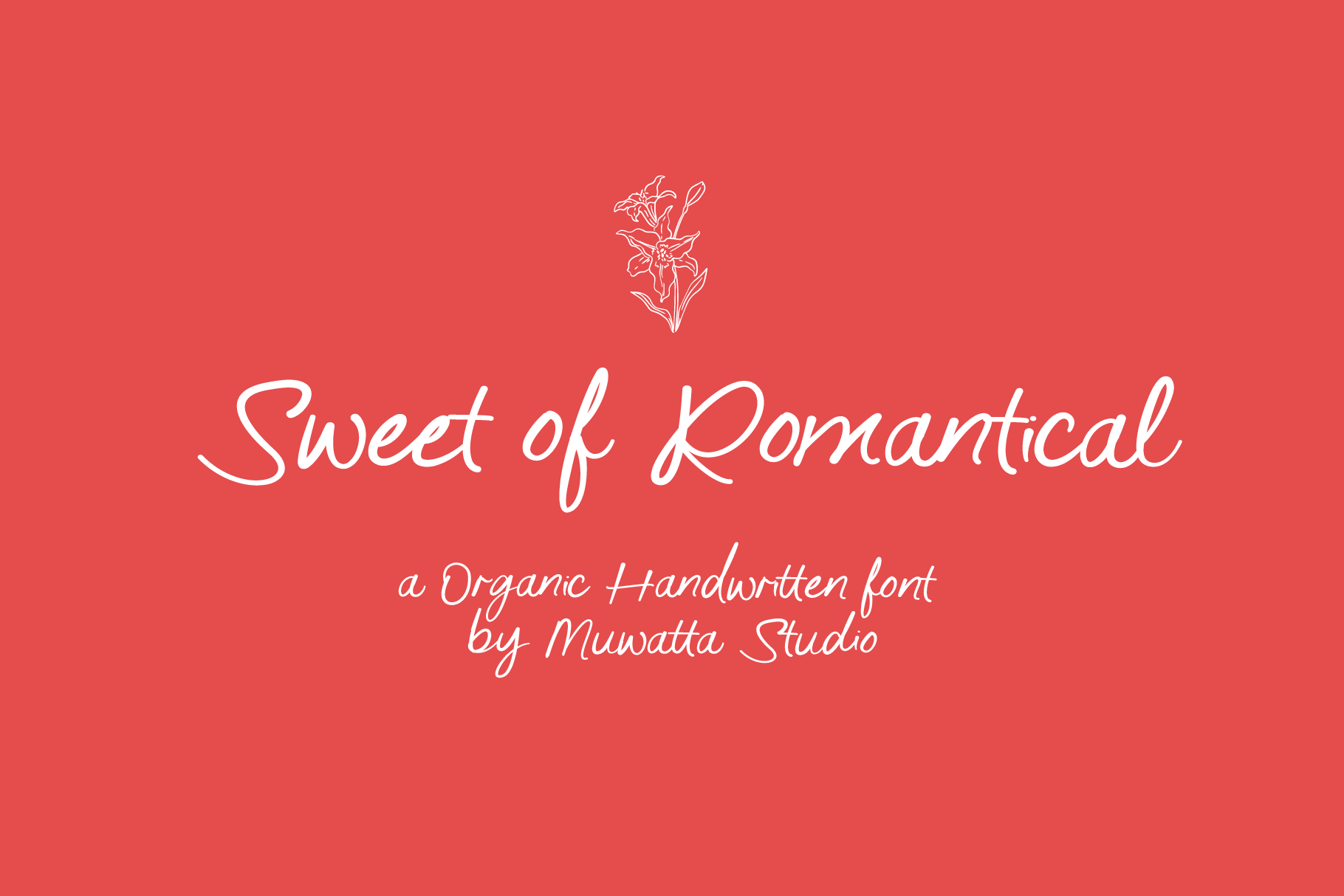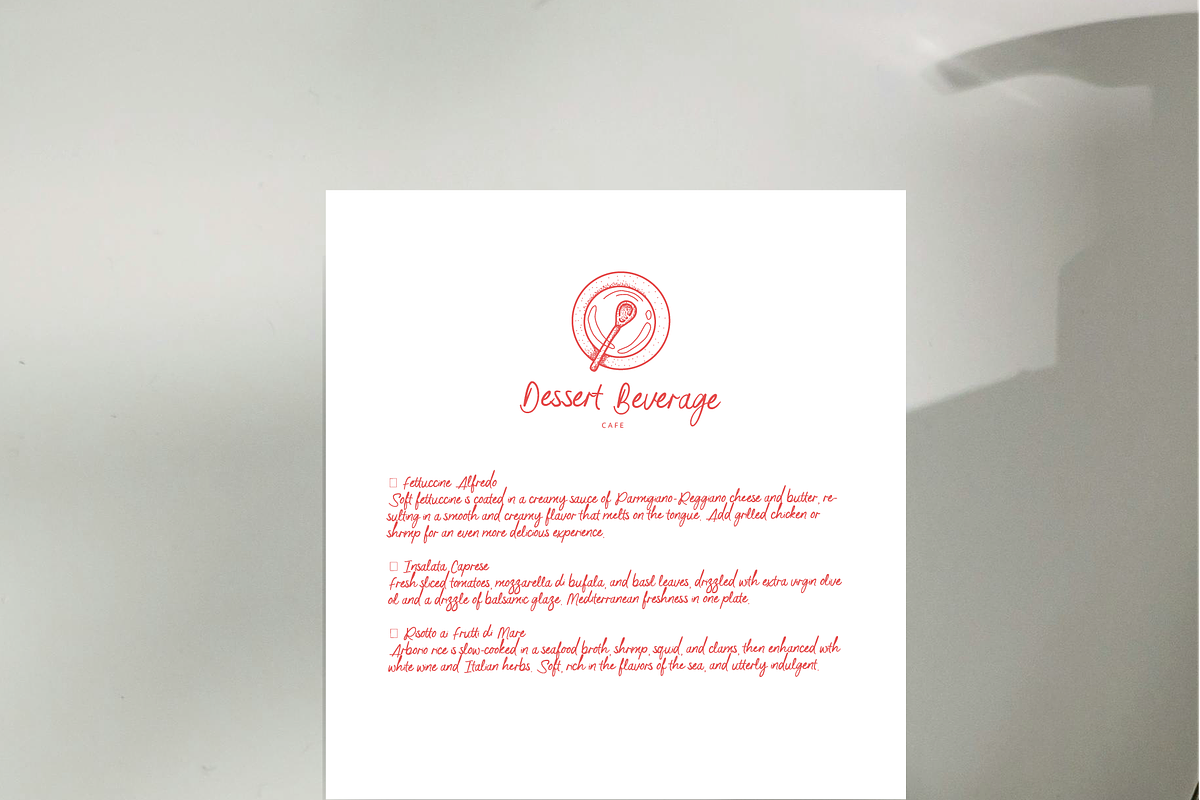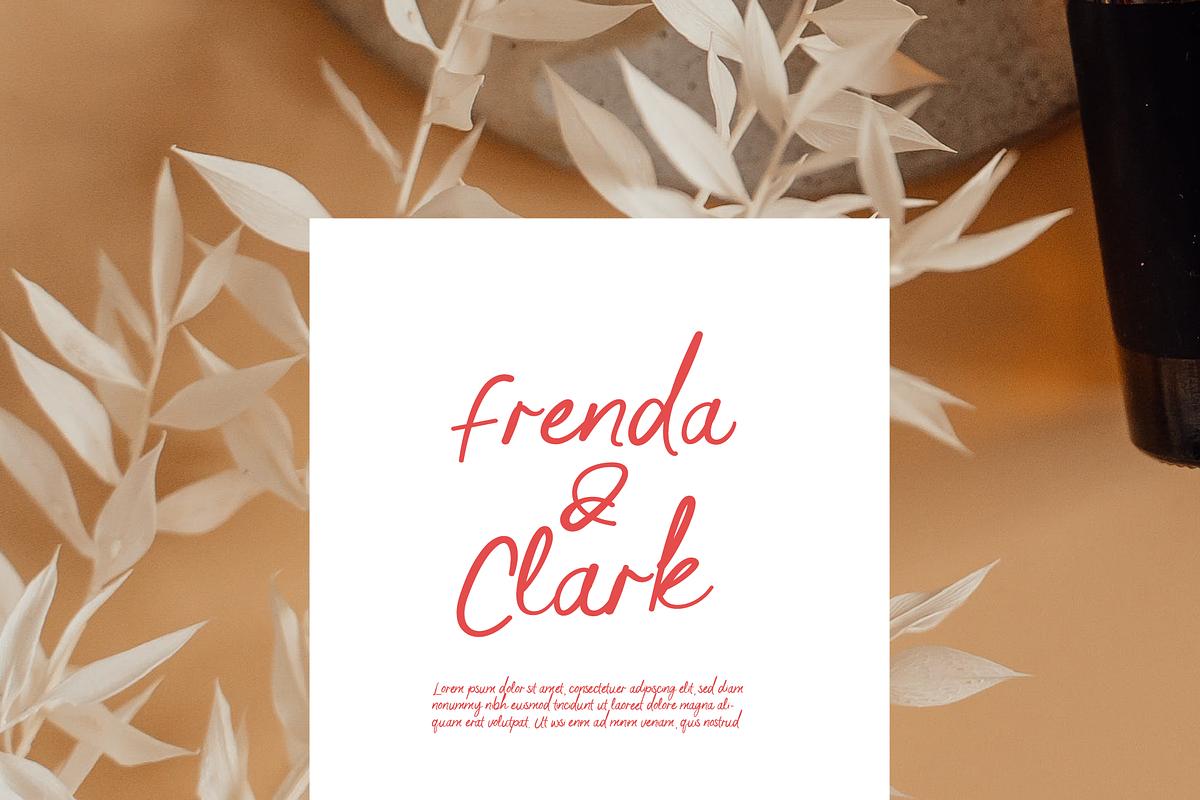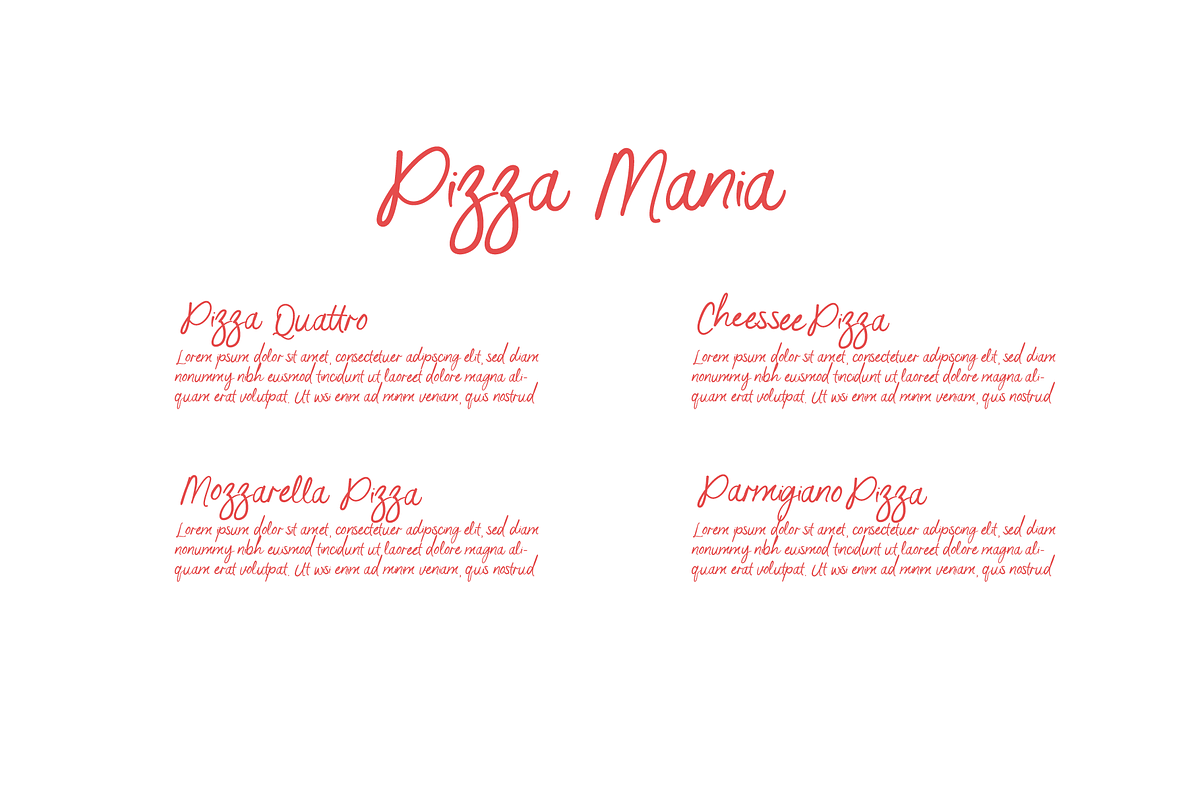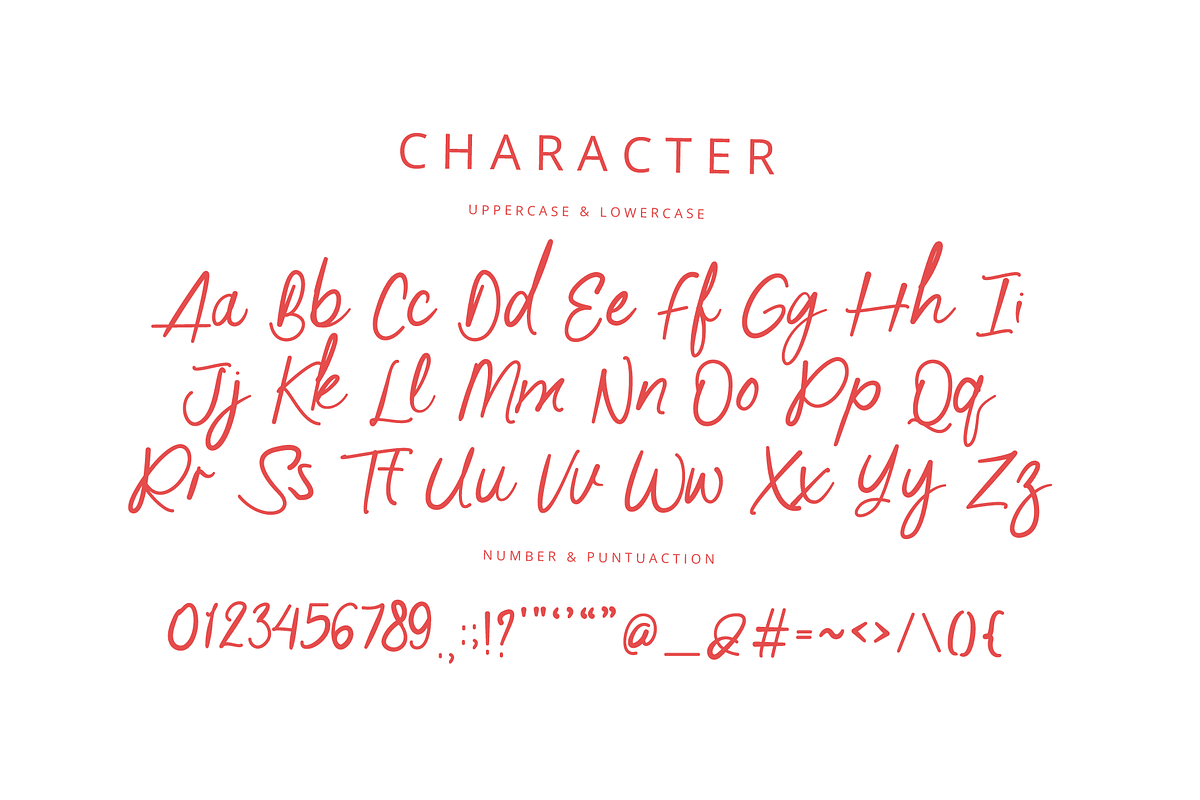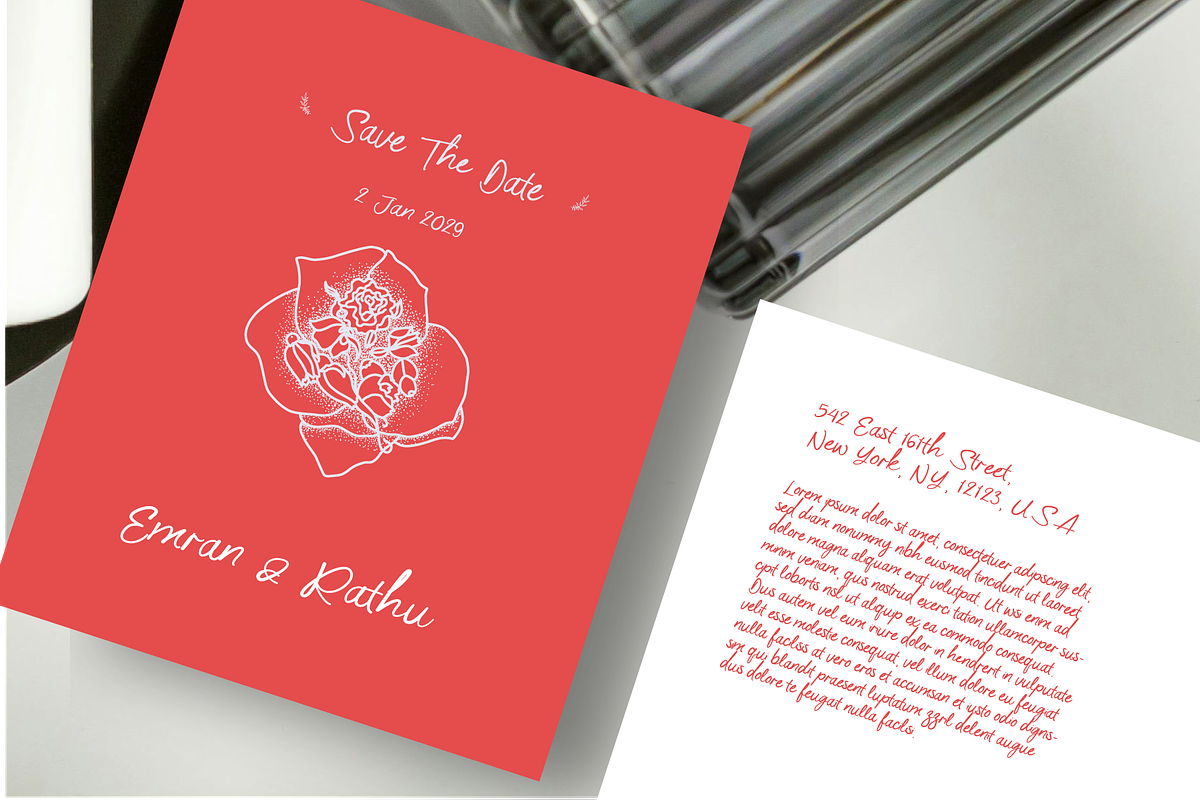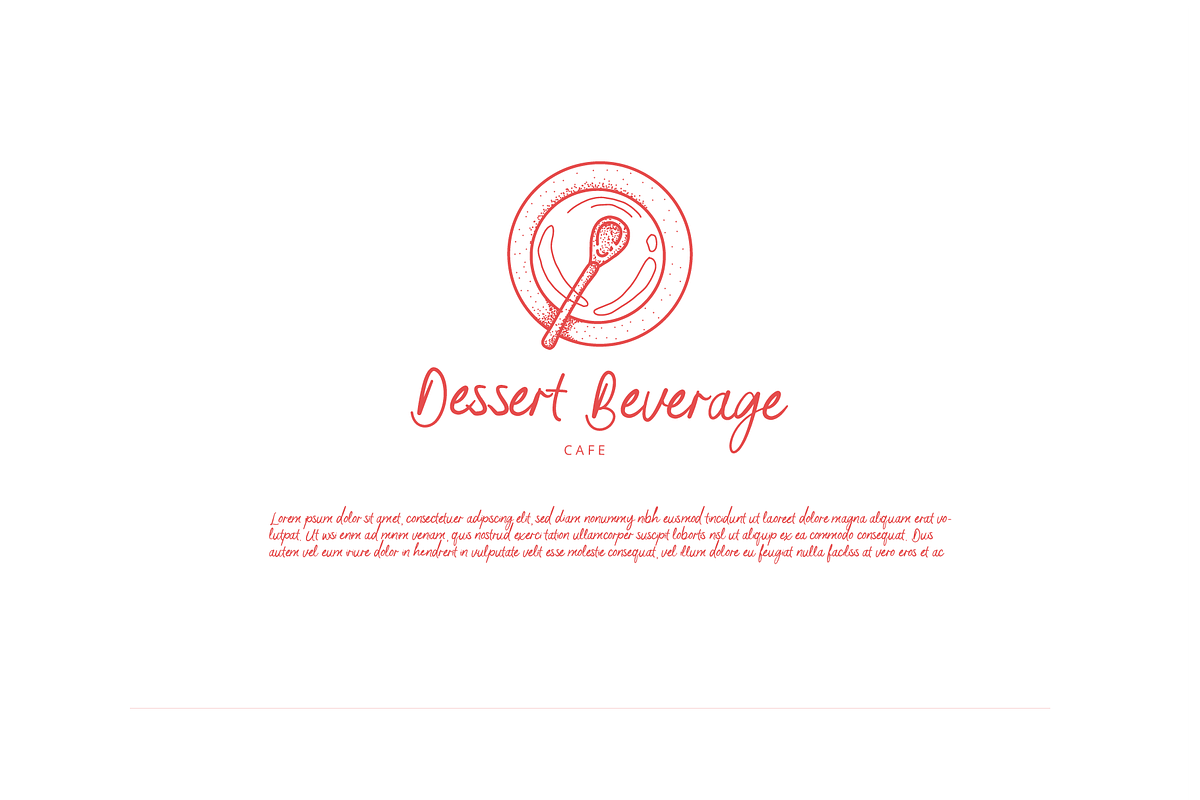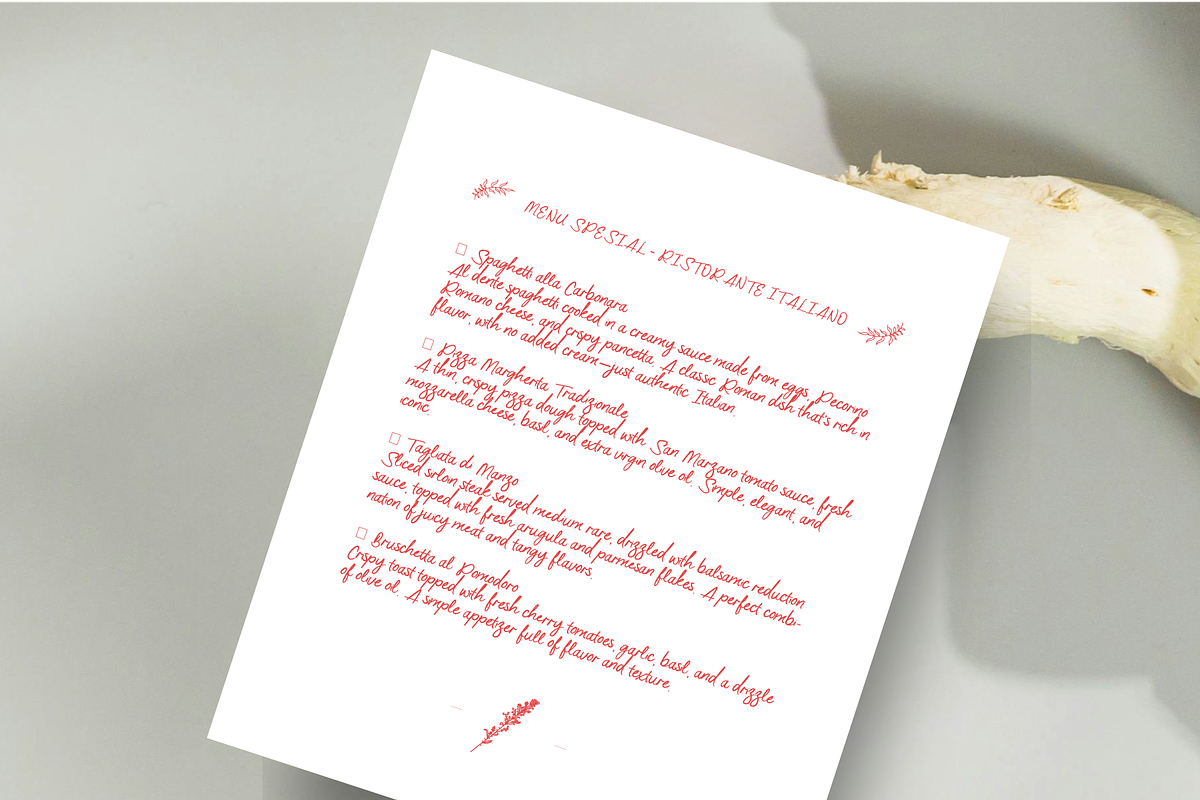
Sweet of Romantical Font
Sweet of Romantical Font is a sweet, charming handwritten font created to bring a touch of romance to every design. With a soft flowing script style and playful whimsical accents, this font is perfect for those who want to add warmth and personal character to their creative work.
Designed with soft curves and organic details, Sweet of Romantical feels like a handwritten love letter poured from the heart. Suitable for feminine branding, wedding invitations, aesthetic quotes, handmade product packaging, to social media content that wants to appear more engaging and warm.
-Full alphabet with Uppercase and Lowercase A-Z for script
-Numbers for all fonts
-Punctuation and symbols for all fonts
-Ligature Lowercase script
-Multilingual support all fonts